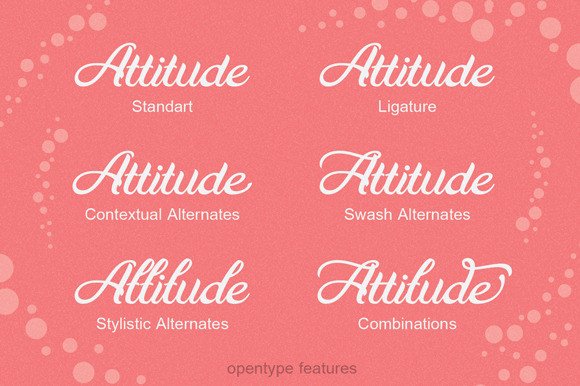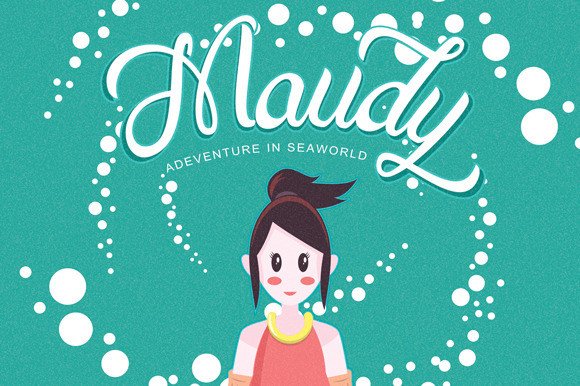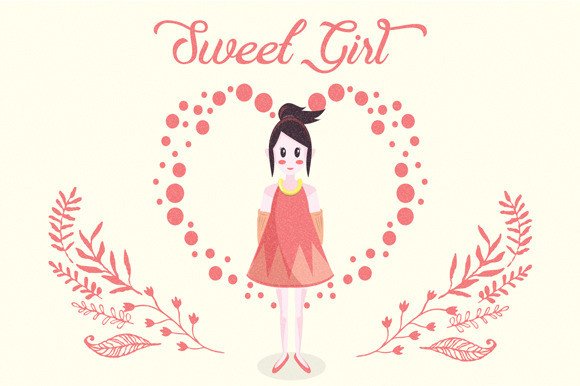
Introduction to Maudy Script Font
Have you ever stared at a blank page, waiting for the perfect idea to strike, only to be met with a sea of empty space? For designers, this moment is all too familiar. The blank canvas can be both exhilarating and intimidating, but with the right tools, it can become a creative playground. This is where the Maudy Script Font comes in – a game-changing design resource that’s about to take your projects to the next level.
As a versatile and modern script font, Maudy Script Font is the perfect companion for any creative project. From logos to book covers, posters to wedding invitations, this font is a high-quality design resource that’s sure to impress. With its natural handwriting brush lettering, it adds a touch of elegance and sophistication to any design. Whether you’re working on a commercial project or a personal one, Maudy Script Font is a valuable addition to your design arsenal.
Key Features of Maudy Script Font
- Unique, elegant script font design ideal for creative projects and design resources.
Honest Review: Maudy Script Font
As a designer, I’m always on the lookout for high-quality design resources that can elevate my creative projects. Recently, I came across the Maudy Script Font, and I’m excited to share my honest review with you.
What works well: ✨ The Maudy Script Font has a beautiful, elegant feel to it. The font is perfect for creating eye-catching headlines and titles for your designs. I love how versatile it is – it can be used for a wide range of creative projects, from wedding invitations to branding materials. The font is also available for free download, making it a fantastic design resource for designers on a budget.
The font includes a transparent background option, which is super useful for creating seamless designs. I’ve used it for several projects, and it’s always a hit with my clients. The font is also highly customizable, allowing you to adjust the size, color, and style to suit your design needs.
- Perfect for creating eye-catching headlines and titles
- Includes transparent background option
Limitations: ⚠️ The Maudy Script Font is a bit on the heavier side, so it may not be suitable for designs where you need a lot of text to fit on a single line. Additionally, the font may not be as versatile as some other script fonts on the market.
Overall impression: I’m really impressed with the Maudy Script Font. It’s a high-quality design resource that’s perfect for designers who want to add a touch of elegance to their creative projects. While it may have some limitations, I think it’s well worth downloading and experimenting with in your next design project.
Tips for Getting the Most Out of Maudy Script Font
To get the most out of the Maudy Script Font, use it with a transparent background to create a sense of depth and elegance. You can also pair it with other high-quality design resources to create a cohesive and visually appealing design.
The Maudy Script Font is commonly used in wedding invitations, birthday cards, and other creative projects that require a touch of elegance and sophistication. It’s also a great font to use for titles and headings in brochures, flyers, and other marketing materials.